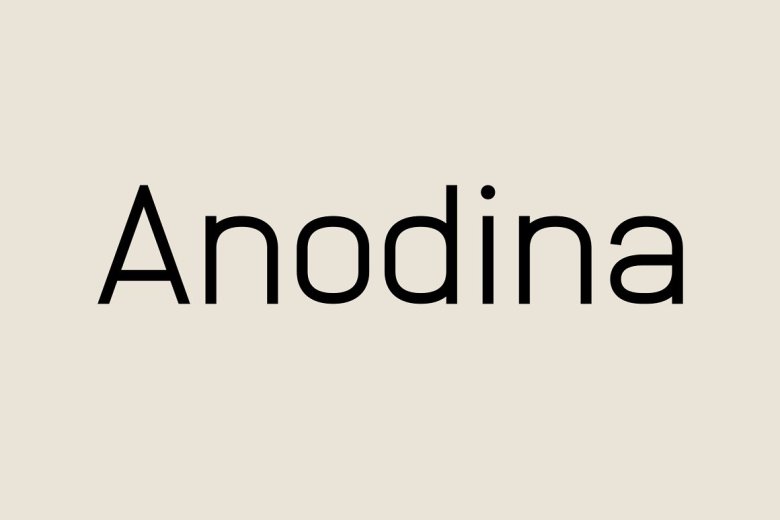
Anodina Font
Anodina Sans Serif Font is a font family with human features but symmetric in its soul. Its optimum legibility, clean, and geometric look is perfect branding, brochures, greeting cards, quotes, posters, stationary, design titles, blog headers, and much more.
Anodina Sans Serif Font